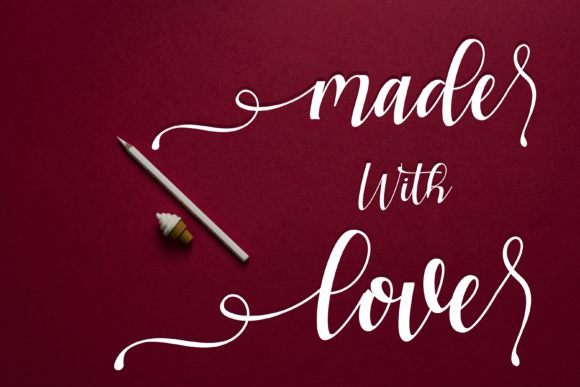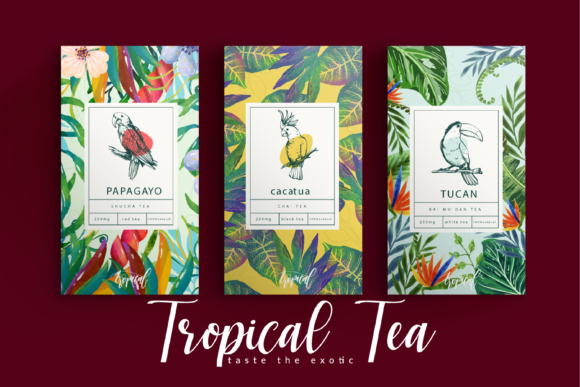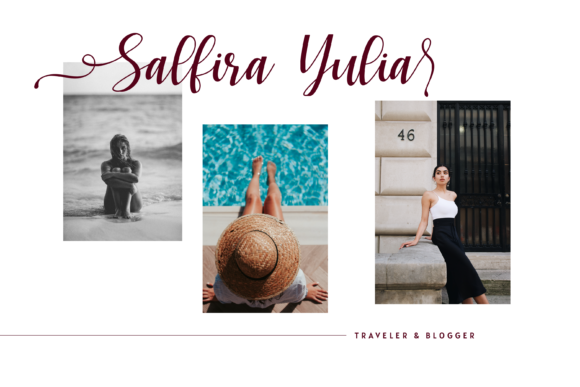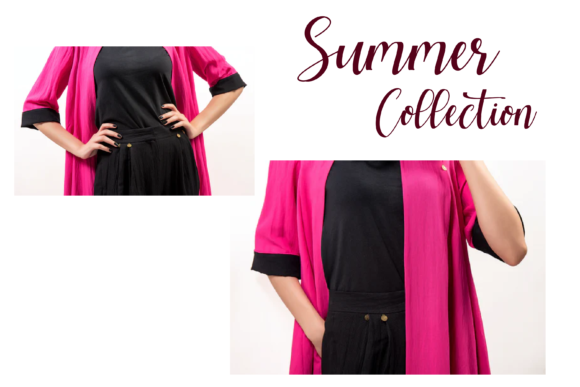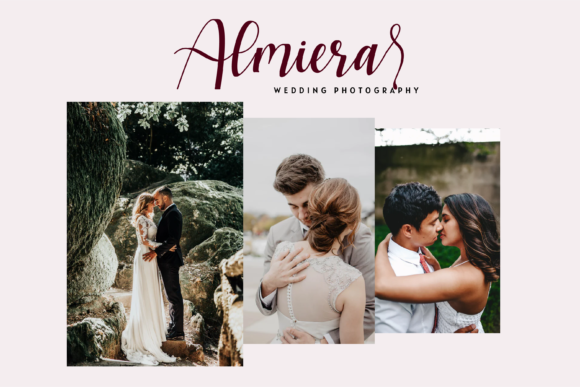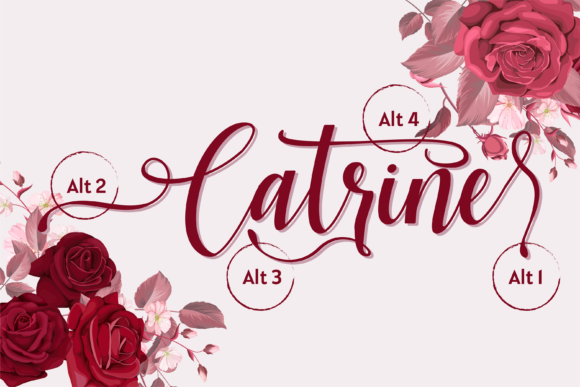
The Catrine Font: A Delicate and Elegant Handwritten Masterpiece
I’ll never forget the moment I stumbled upon the Catrine font while working on a project for a client who wanted a custom wedding invitation. I had been searching for the perfect font for hours, trying out different styles and weights, but nothing seemed quite right. That was until I saw Catrine – its delicate and elegant handwritten letters immediately caught my eye, and I knew I had found the one.
The Catrine font is a true masterpiece, with stylish and well-rounded letters that exude a sense of sophistication and whimsy. Its incredibly unique and sweet style makes it perfect for a wide range of design projects, from wedding invitations and party decor to branding and packaging.
- ✨ Delicate and elegant handwritten letters that add a touch of sophistication to any design
- 🎉 Unique and sweet style that’s sure to stand out
- 💕 Perfect for feminine and elegant designs, such as wedding invitations and party decor
- 🤔 Limited availability of certain characters and glyphs, which can make it tricky to use for certain projects
- ⚠️ May not be the best choice for very bold or attention-grabbing designs, as it’s a more delicate font
The Story Behind Catrine: Designer Inspiration
The Catrine font was designed by a team of talented typographers who wanted to create a font that was both elegant and playful. Inspired by traditional handwritten scripts, they crafted a font that is both refined and whimsical. The result is a font that is perfect for a wide range of design projects, from formal invitations to playful party decor.
Q: What type of designs is Catrine best suited for?
A: Catrine is perfect for feminine and elegant designs, such as wedding invitations, party decor, and branding.
Q: Is Catrine a difficult font to use?
A: No, Catrine is a relatively easy font to use, especially for those with experience working with script fonts. It’s also a great choice for beginners, as it’s highly legible and easy to read.